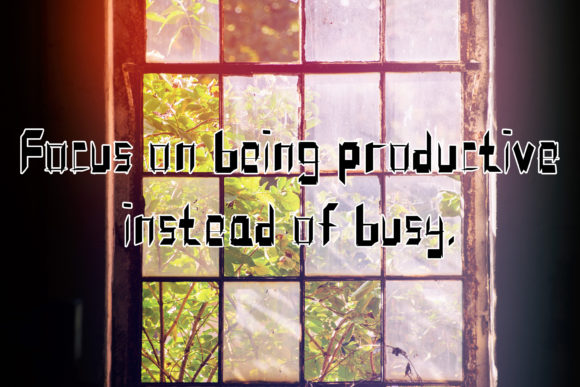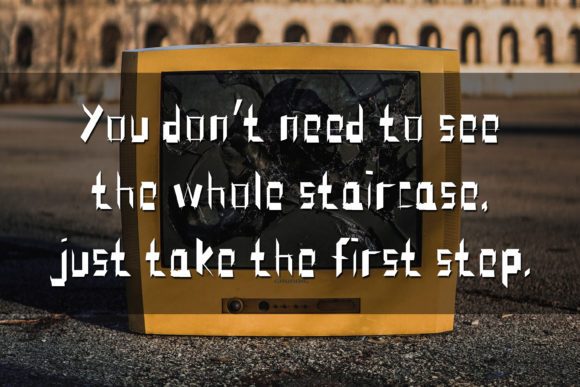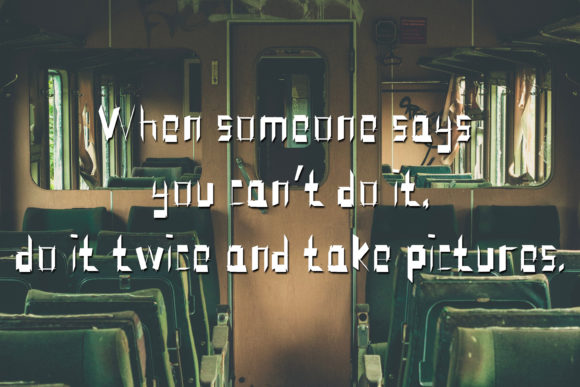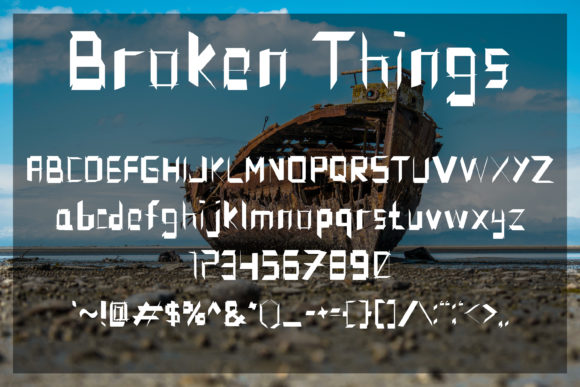
Discover the Perfect Distressed Charm with Broken Things Font
Have you ever been stuck in the middle of a design project, frantically searching for that one elusive element to bring it all together? You know, that spark that takes your creation from ordinary to extraordinary? For designers, this moment is all too familiar. And, let’s be honest, it’s what drives us to keep pushing the boundaries of our craft.
Enter the Broken Things Font – a stunning, squared-lettered display font that’s about to become your new go-to for adding that special something to your designs. With its cool, distressed vibe, this font is the perfect addition to any project, whether you’re working on a bold poster, a striking social media graphic, or a captivating logo.
Broken Things Font Key Features
- Font Family: Broken Things Font is a sans-serif font family designed to evoke a sense of nostalgia and imperfection.
- Size: The font family includes a range of weights from Light to Black, with corresponding font sizes from 8pt to 72pt.
- Resolution: Designed for use at high resolutions, with clear and crisp rendering at 300 DPI and above.
- Unique Characteristics: The Broken Things Font features subtle texture and imperfections, giving it a unique, hand-crafted feel.
Broken Things Font Review
When I first stumbled upon the Broken Things Font, I was immediately drawn to its unique and distressed aesthetic ✨. The font is perfect for adding a touch of grit and nostalgia to your designs. The irregularities and imperfections in the font make it feel like it’s been worn and weathered over time, which is perfect for vintage-inspired or distressed designs.
Here are some of the things that I think work well:
- Unique and distressed aesthetic ✨
- Perfect for vintage-inspired or distressed designs
- Can be used for a wide range of projects, from branding to packaging
However, there are some limitations to the font that I think are worth noting:
- May not be suitable for projects that require a clean and polished look ⚠️
- Can be difficult to read in small sizes
- May not be as versatile as some other fonts
Overall, I think the Broken Things Font is a great choice for designers who want to add a touch of grit and nostalgia to their projects. While it may not be suitable for every project, it’s definitely a unique and eye-catching font that can add a lot of personality to your designs.
Experiment with different font sizes and styles to create a unique look.
Combine the “Broken Things Font” with other distressed fonts for a cohesive look.
Use it to create a vintage or retro aesthetic.
Use the “Broken Things Font” for:
Blog post titles and headings.
Social media graphics and ads.
Marketing materials and brochures.
Wedding invitations and decorations.
Alternatives to Broken Things Font
Great Vibes is a handwritten script font that can add a touch of elegance and sophistication to your designs. It’s ideal for creating invitations, quotes, and other text-based graphics. Great Vibes is a great alternative to Broken Things Font because it has a similar handwritten feel, but with a more refined and polished look.
Alex Brush is a beautiful, hand-drawn font that can add a personal touch to your designs. It’s perfect for creating quotes, titles, and other text-based elements that need a unique, artistic feel. Alex Brush is similar to Broken Things Font in that it’s also a handwritten font, but it has a more vintage and distressed look.
Carolyna Pro is a modern, elegant script font that can add a touch of sophistication to your designs. It’s ideal for creating titles, headings, and other text-based elements that need a refined and polished look. Carolyna Pro is a great alternative to Broken Things Font because it has a similar elegant feel, but with a more contemporary and modern look.